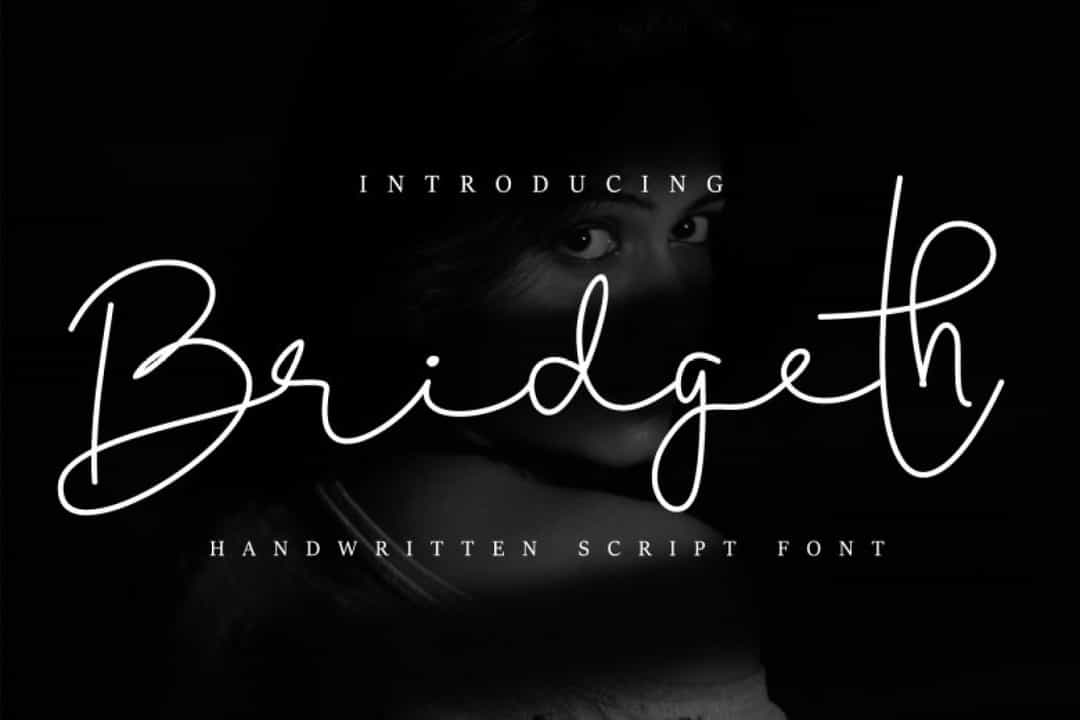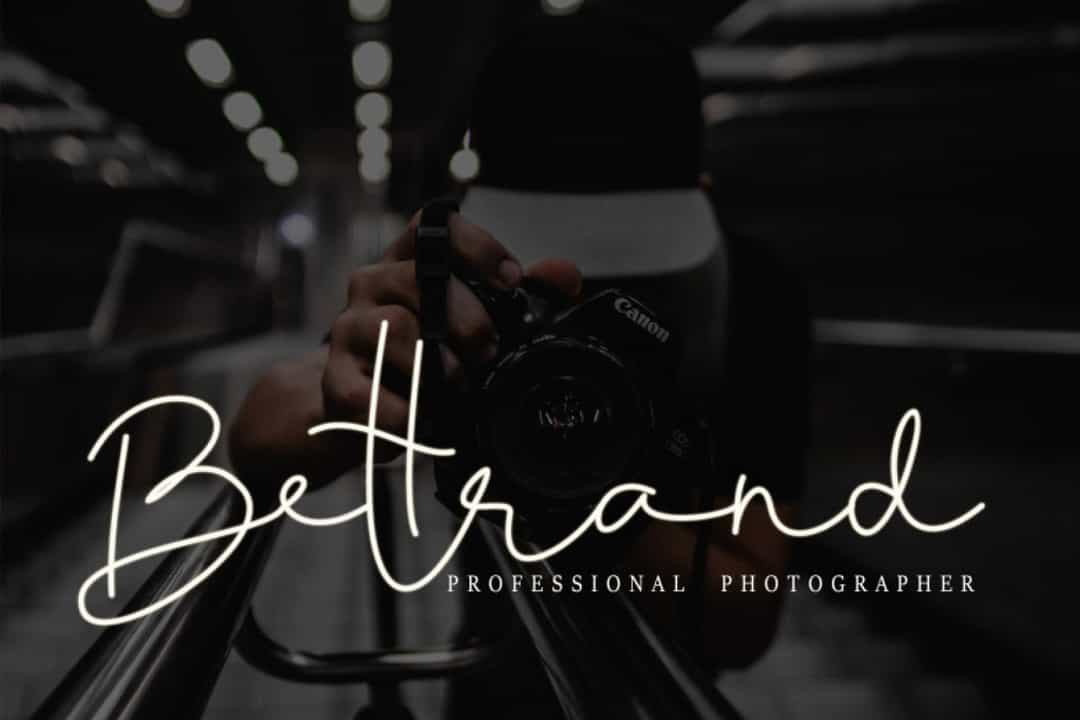
Bridgeth is an elegant handwritten script fonts and has a very beautiful design. This type of font is perfect for wedding invitation cards, thank you notes, and quotes, greeting cards, and, of course, branding and business cards that require a special approach.